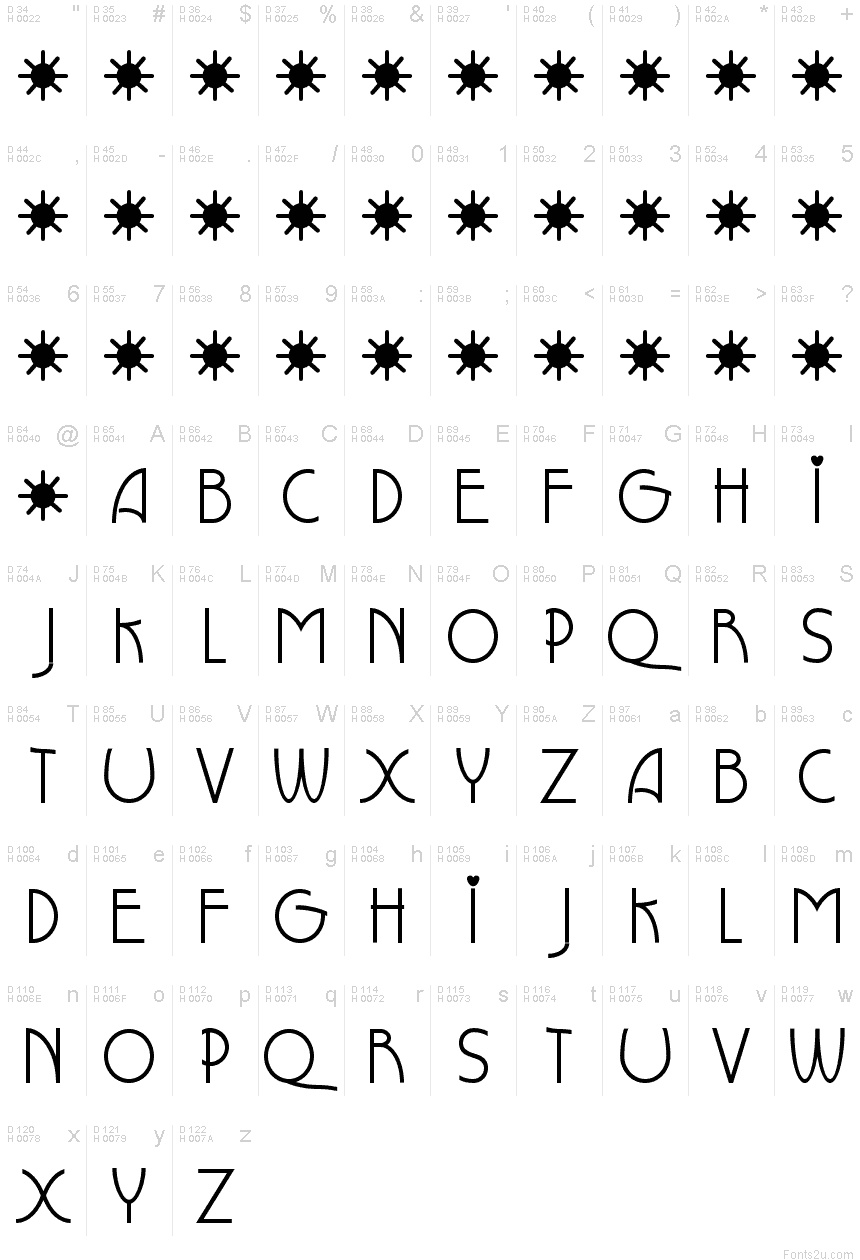
Grouser
Grouser font by Jakob Fischer is a free retro display typeface with a wonderfully oddball rhythm. Its ultra-round curves, skinny verticals and unexpected bends make letters feel like bent neon tubing or wire sculpture, giving headlines a playful, handcrafted wobble. The black outlines stay crisp, but there’s a subtle looseness that keeps it from feeling sterile or purely geometric.
Using Grouser, you get a distinctive voice for posters, logos, packaging, event flyers, album covers, and quirky game titles. This free font shines when set large, where its looping shapes and tall forms can really breathe. Pair Grouser with a simple, unobtrusive sans serif for body copy, letting its retro character carry the main message without visual clutter.